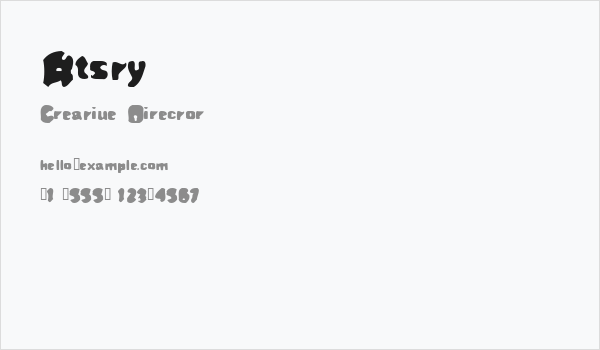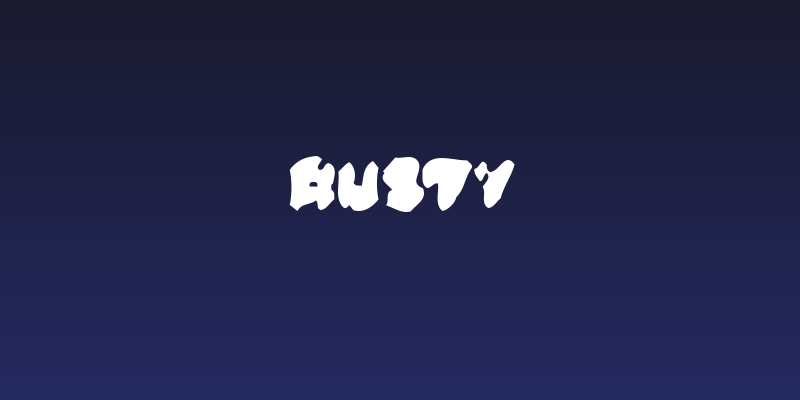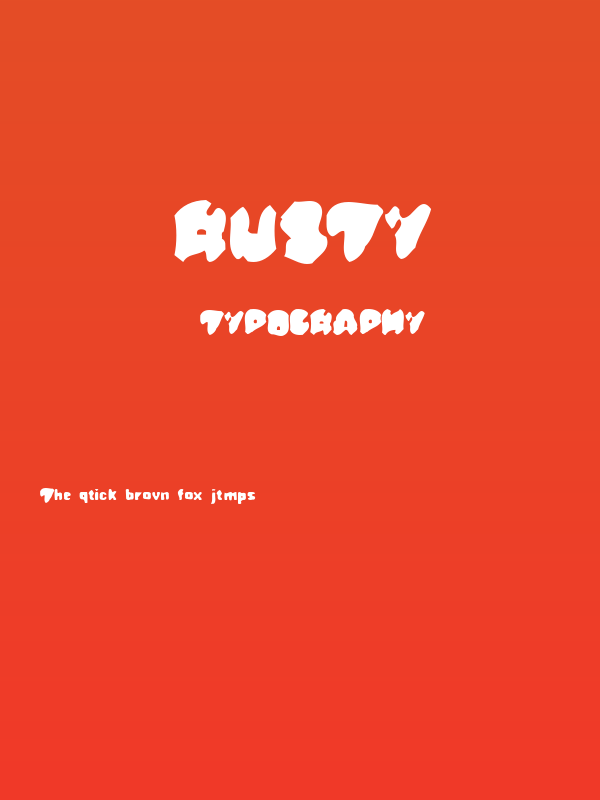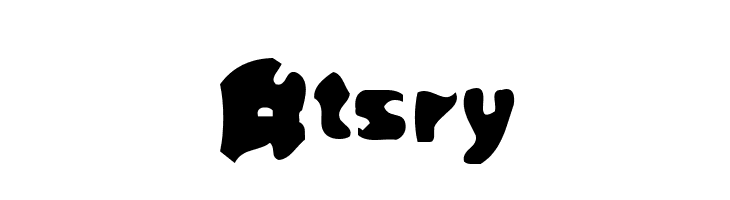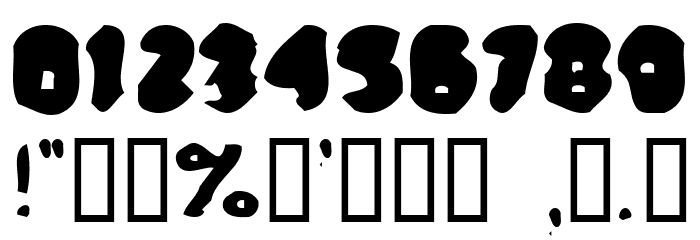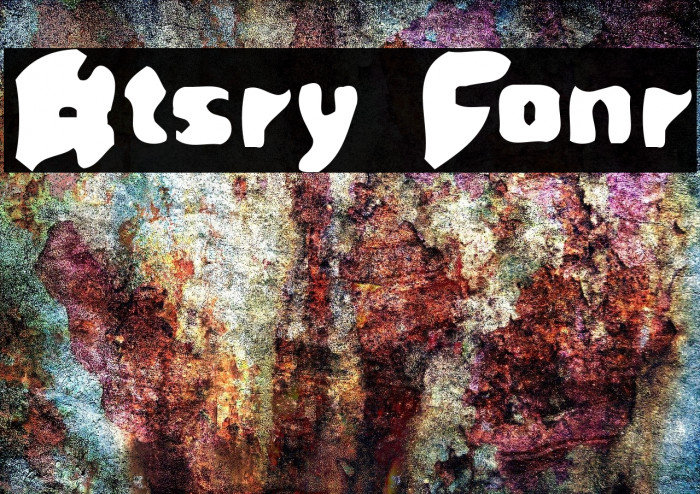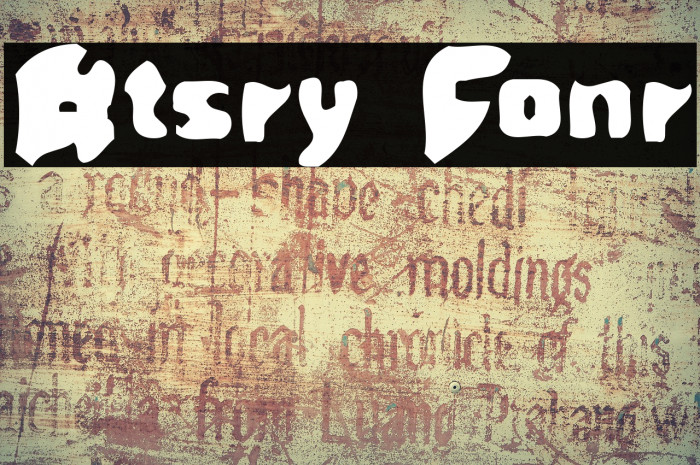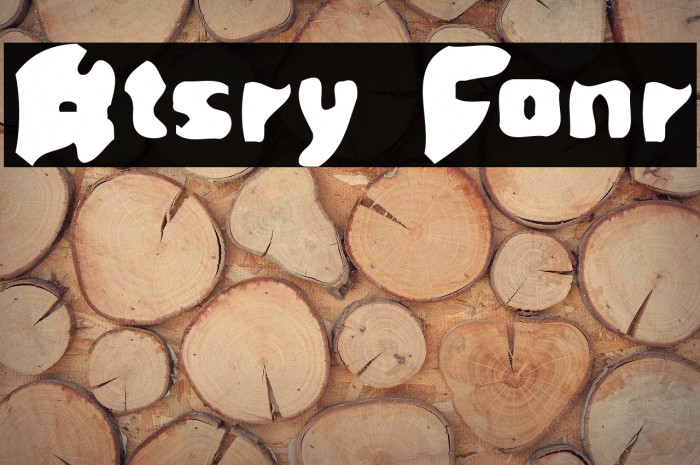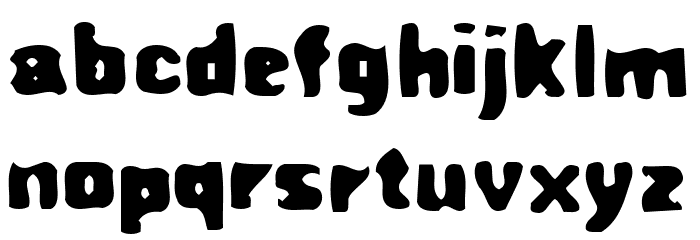
Rusty Font
Rusty Description
This font features a bold and playful style with a distinctly irregular and organic appearance. The characters are thick and rounded, giving them a soft and approachable feel. The edges are uneven, resembling a hand-drawn or painted effect, which adds a unique charm and character. The font maintains a consistent weight throughout, with each letter exhibiting a slightly different shape, enhancing its whimsical and artistic nature. The numbers and special characters follow the same design principles, ensuring a cohesive look across all elements. This font is ideal for projects that require a fun and informal touch.
| Proposed Projects | Ideal for children's books, playful branding, posters, and creative invitations. |